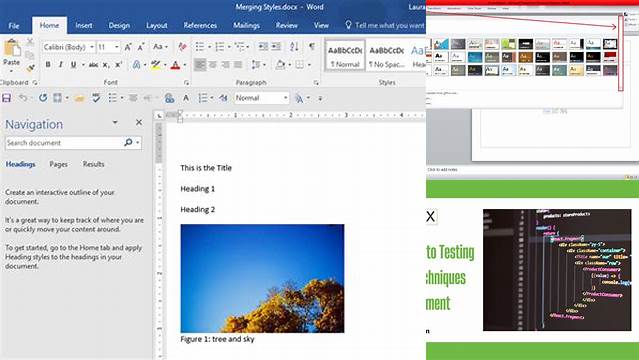
Themes: Fonts, Colors, And Effects For Your Documents
Hey guys! Ever wondered how to give your documents a consistent and professional look without manually tweaking every single element? Well, themes are your answer! A theme is basically a pre-designed set of formatting choices that apply to the entire document, including fonts, colors, and effects. Think of it as a style guide for your digital creations. Understanding and utilizing themes can significantly enhance the visual appeal and consistency of your documents, making them look polished and professional. This comprehensive exploration will delve into the essence of themes, dissecting their components, exploring their benefits, and providing practical guidance on how to effectively implement them in your document creation process. Grasping the concept of themes is crucial for anyone aiming to create visually cohesive and impactful documents, whether for professional reports, academic papers, or creative presentations. So, let's dive in and unravel the magic of themes!
In the realm of document creation, a theme functions as a cohesive package of design elements that govern the overall appearance of a document. Themes aren't just about picking a single font or a color; they encompass a holistic approach to visual styling. They define a specific set of fonts for headings and body text, a palette of colors for accents and backgrounds, and a collection of visual effects like shadows, gradients, and line styles. This pre-defined set of formatting choices ensures consistency throughout the document, providing a unified and professional aesthetic. Imagine crafting a business proposal where every heading, paragraph, and chart seamlessly aligns with a consistent visual identity. That's the power of themes at play. By applying a theme, you can instantly transform a plain document into a visually appealing masterpiece, saving time and effort while maintaining a polished look. The beauty of themes lies in their ability to provide a foundation for visual consistency, allowing you to focus on the content while ensuring a cohesive and professional presentation. Think of it as having a personal design assistant that ensures all your visual elements work harmoniously together. So, next time you're staring at a blank document, remember that themes are your secret weapon for creating stunning visuals with minimal effort.
Understanding the core components of a theme is crucial to effectively leveraging its capabilities. A typical theme comprises three main elements: fonts, colors, and effects. Let's break these down:
Fonts: A theme usually includes two font choices – one for headings and another for body text. This ensures a clear visual hierarchy and readability. For instance, a theme might pair a bold, attention-grabbing font like Arial Black for headings with a clean, legible font like Times New Roman for the body. The font selection significantly impacts the overall tone and professionalism of the document. Imagine a legal document using a playful, whimsical font – it wouldn't quite convey the seriousness required, would it? Selecting the right fonts within a theme is paramount to communicating the intended message effectively. The font pairings are carefully chosen to complement each other, enhancing the visual appeal and readability of the text. Exploring different font combinations within themes can dramatically alter the document's character, allowing you to tailor the visual presentation to the specific needs of your content. So, pay close attention to the font choices within a theme, as they are the foundational elements of visual communication.
Colors: A color palette within a theme includes a range of colors for accents, backgrounds, and text. These colors are carefully selected to work harmoniously together, creating a visually pleasing and balanced look. Think of it as an artist's palette, where each color complements the others, creating a cohesive visual experience. A well-designed color palette can evoke specific emotions and associations, influencing how your audience perceives the content. For example, a theme using cool blues and greens might convey a sense of calmness and professionalism, while a theme with vibrant reds and oranges might evoke energy and excitement. The color palette extends beyond just the text and backgrounds; it often includes colors for charts, graphs, and other visual elements, ensuring consistency across the entire document. Understanding the psychological impact of colors is essential when choosing a theme. The right color palette can enhance readability, highlight key information, and create a lasting impression on your audience. So, delve into the color schemes within themes and discover how they can transform the visual narrative of your document.
Effects: Themes also incorporate visual effects, such as shadows, gradients, and line styles. These effects add depth and visual interest to the document, enhancing its overall aesthetic appeal. Think of effects as the finishing touches that elevate a document from plain to polished. Subtle shadows can create a sense of depth, making elements appear to pop off the page. Gradients can add a smooth transition between colors, creating a visually pleasing background. Line styles can define borders and separators, adding structure and clarity to the document. The effects within a theme are carefully chosen to complement the fonts and colors, creating a cohesive and visually harmonious look. Overusing effects can lead to a cluttered and unprofessional appearance, so it's crucial to use them judiciously. The key is to enhance the visual appeal without distracting from the content. Experimenting with different effect combinations within themes can reveal subtle yet impactful ways to elevate the visual presentation of your document. So, explore the world of visual effects and discover how they can add that extra layer of sophistication to your creations.
Why should you bother using themes? Well, the benefits are numerous and can significantly improve your document creation process. Let's explore some key advantages:
Consistency: Themes ensure consistency throughout your document. Say goodbye to mismatched fonts and clashing colors! This unified look creates a professional and polished appearance, which is crucial for conveying credibility and attention to detail. Imagine reading a report where the headings change font size on every page, or the color scheme shifts randomly – it would be jarring and detract from the message, right? Themes eliminate this issue by providing a pre-defined set of styles that are applied consistently across the entire document. This consistency extends beyond just the text and colors; it also applies to the visual effects, ensuring that shadows, gradients, and line styles are used uniformly. The result is a document that looks cohesive and well-designed, reflecting positively on the creator. In the professional world, consistency is key to building trust and conveying competence. Using themes is a simple yet effective way to achieve this visual consistency, enhancing the overall impact of your documents. So, embrace the power of consistency and let themes work their magic in transforming your documents into polished masterpieces.
Time-Saving: Instead of manually formatting every element, you can apply a theme with a single click. This saves a ton of time and effort, especially for large documents. Think about the hours you might spend tweaking font sizes, color palettes, and visual effects across a lengthy report or presentation. With themes, that time is drastically reduced, allowing you to focus on the content itself. This efficiency boost is particularly valuable in fast-paced environments where deadlines are tight. Applying a theme instantly sets the visual foundation for your document, providing a consistent style framework that you can then customize further if needed. The time saved by using themes can be re-invested in refining the content, conducting research, or collaborating with colleagues. It's a smart way to optimize your workflow and maximize your productivity. So, ditch the tedious manual formatting and embrace the time-saving power of themes. You'll be amazed at how much more you can accomplish when you're not bogged down by repetitive tasks.
Professional Look: Themes are designed by professionals, ensuring a visually appealing and polished final product. You don't need to be a design expert to create documents that look like they were crafted by one. Themes incorporate established design principles, such as color theory, typography, and visual hierarchy, to create a harmonious and professional aesthetic. They take the guesswork out of visual design, allowing you to focus on the message you want to convey. Using themes can elevate your documents from looking amateurish to exuding a sense of sophistication and credibility. This is particularly important for business presentations, reports, and proposals, where visual appeal can significantly impact the audience's perception. Choosing a well-designed theme can instantly enhance the professionalism of your documents, leaving a lasting positive impression. So, let the expertise of professional designers guide your visual creations and leverage the power of themes to create documents that command attention and respect.
Customization: While themes provide a starting point, they are also customizable. You can tweak fonts, colors, and effects to match your specific needs or branding. This flexibility allows you to create a unique look while still maintaining consistency. Think of themes as a canvas upon which you can add your personal touch. You can adjust the color palette to align with your brand's visual identity, swap out fonts to better suit the tone of your content, or modify the visual effects to create a specific mood. The customization options within themes empower you to tailor the visual presentation to your exact requirements, without sacrificing the underlying consistency. This balance between pre-designed elements and customization options is what makes themes so versatile and powerful. You can create a truly unique and professional look, while still benefiting from the time-saving and consistency advantages that themes provide. So, explore the customization possibilities within themes and discover how you can make them your own, reflecting your individual style and brand identity.
Applying and customizing themes is a straightforward process in most document creation software. Here's a general guide:
Themes are powerful tools for creating visually consistent and professional documents. By understanding their components, benefits, and best practices, you can elevate your document creation process and make a lasting impression. So, go ahead, explore the world of themes and unlock their potential to transform your documents from ordinary to extraordinary! Remember guys, a well-designed document speaks volumes, and themes are your secret weapon to achieving visual excellence. Embrace the power of consistency, efficiency, and professionalism that themes offer, and watch your documents shine! Happy creating!